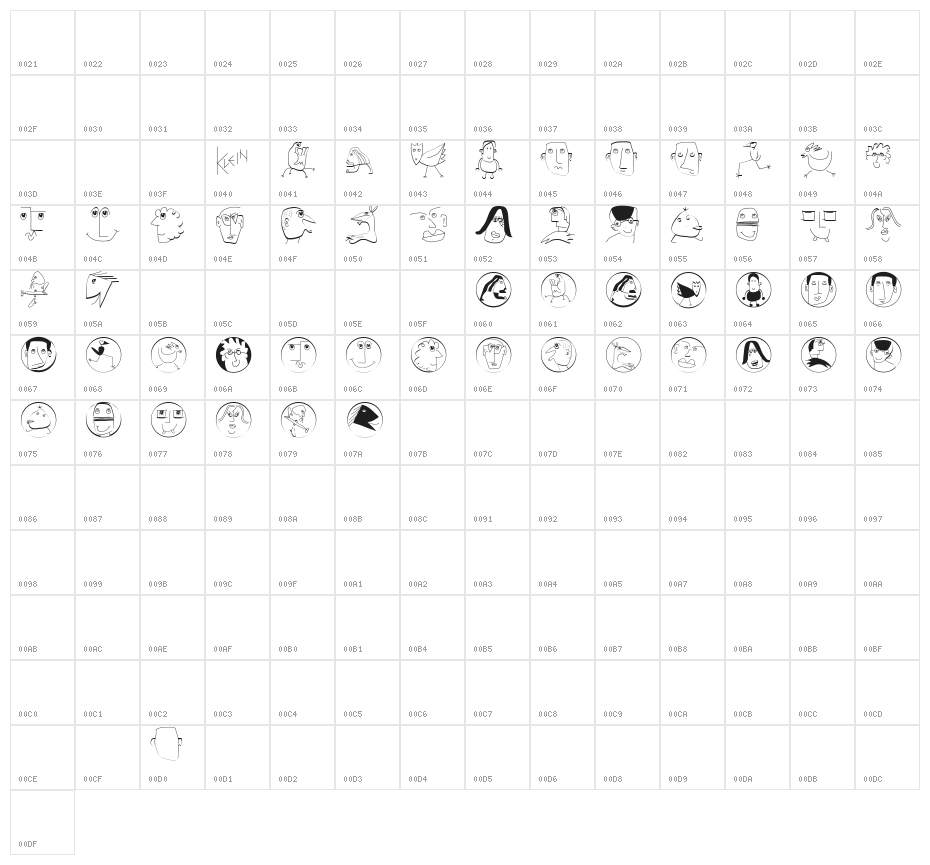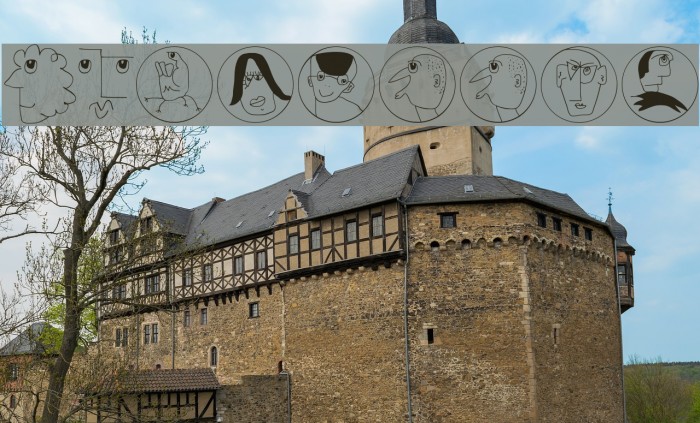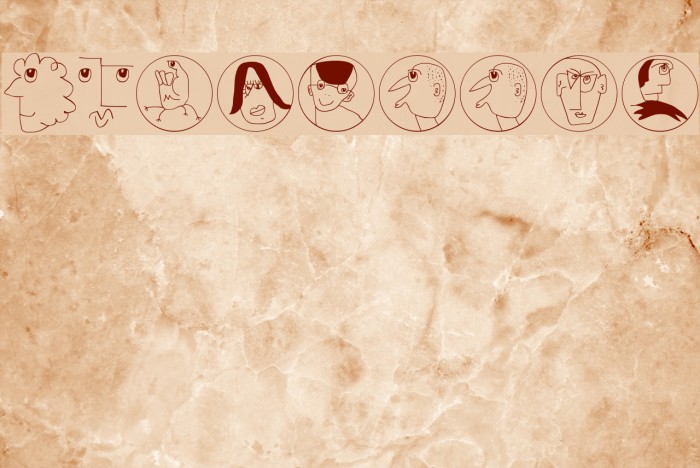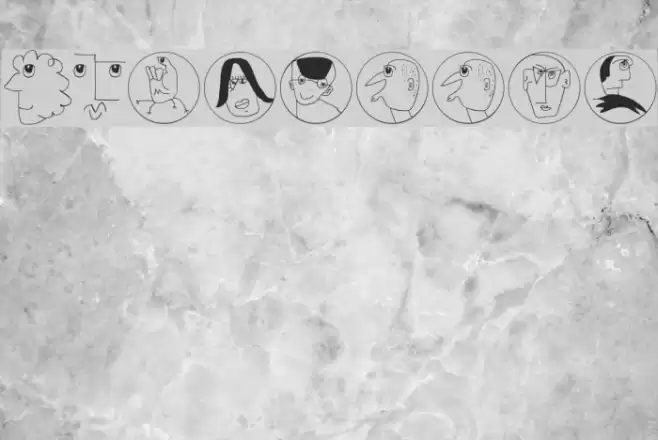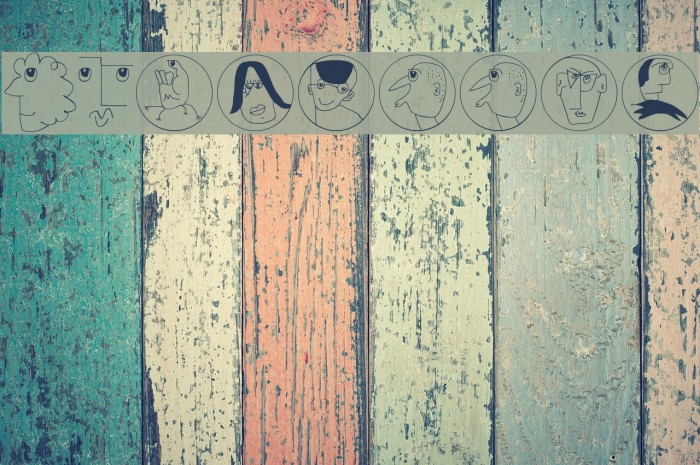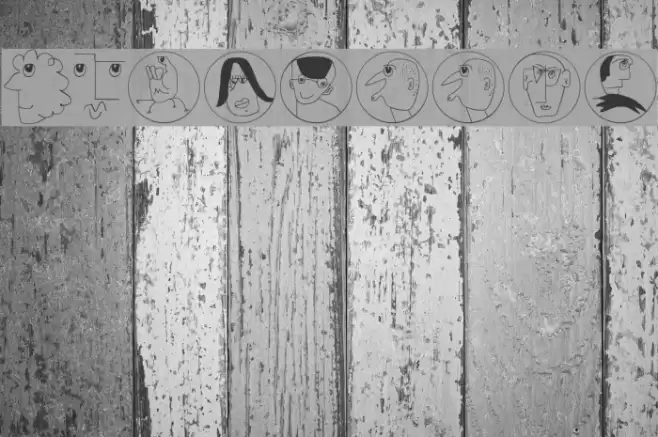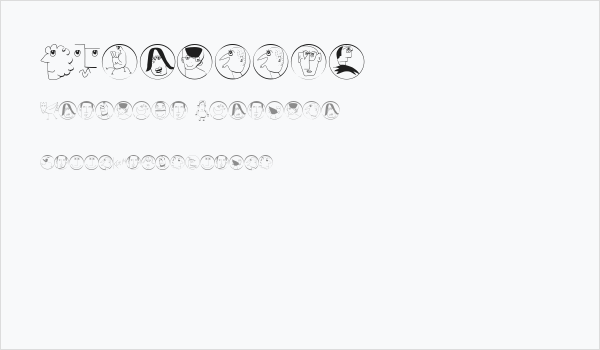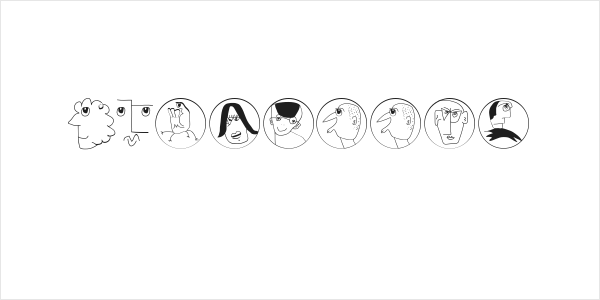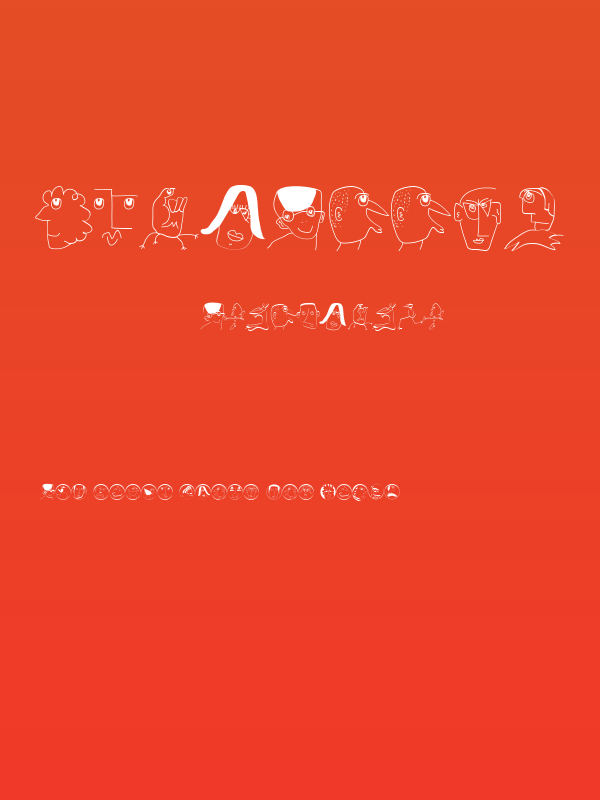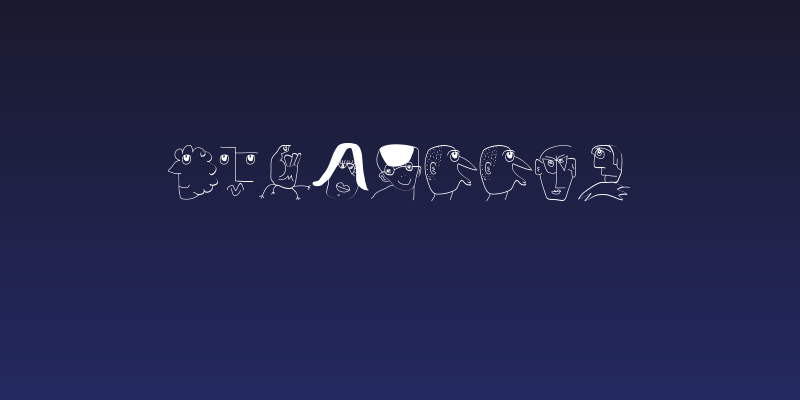
MKartoons Font
MKartoons Description
A whimsical, hand-drawn decorative font featuring playful cartoon faces and characters for each letter and symbol, with a loose, sketchy line quality and a variety of expressive, abstract forms.
Overall StyleWhimsical, Playful, Artistic
Use CaseHeadlines, Logos, Posters, ChildrenÒ€ℒs materials
Proposed ProjectsChildrenÒ€ℒs books, comic titles, playful branding, greeting cards, posters, educational materials.